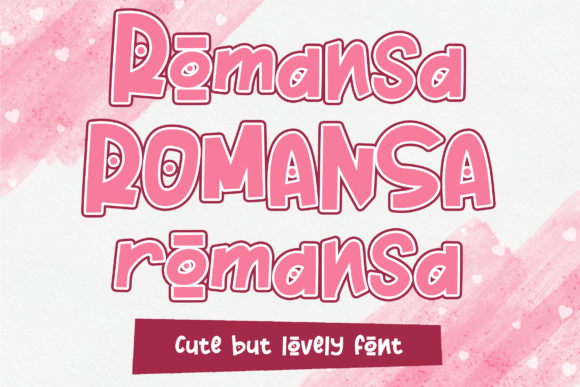
Introducing Romansa Font: The Playful and Energetic Display Font that Sparks Imagination!
In the vast world of typography, where endless fonts vie for attention, Romansa Font emerges as a playful and energetic display font, captivating hearts with its quirky and cartoon-like charm. Inspired by the exuberance of coffee brands, Romansa Font exudes an aura of creativity and lightheartedness, ready to brighten up any project with its childlike allure.
Unleash Your Imagination: Romansa Font's Unconventional Appeal!
With its unconventional curves and cheerful character, Romansa Font invites you to unleash your imagination and explore a world of boundless possibilities. Its playful design evokes a sense of nostalgia, reminiscent of cherished childhood memories. Embrace the whimsy and energy of Romansa Font, and let your creativity run wild.
Ignite Your Coffee Brand with Romansa Font's Alluring Aesthetics!
Envision the magic of Romansa Font adorning your coffee brand's packaging, menus, and marketing materials. Its captivating aesthetics will leave a lasting impression on your customers, igniting their imagination and kindling a connection that goes beyond coffee.
Elevate Your Projects with Romansa Font's Versality!
Romansa Font's versatility knows no bounds, extending its playful magic to a myriad of design projects. Whether you're crafting playful invitations, adding a touch of whimsy to social media posts, or creating enchanting digital designs, Romansa Font seamlessly adapts, adding a unique spark to each of your endeavors.